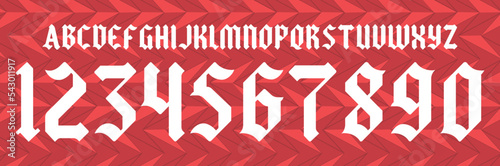
font vector team 2020 - 2021 kit sport style font. arsenarl and premier league. football style font gothic. sports style letters and numbers for soccer team